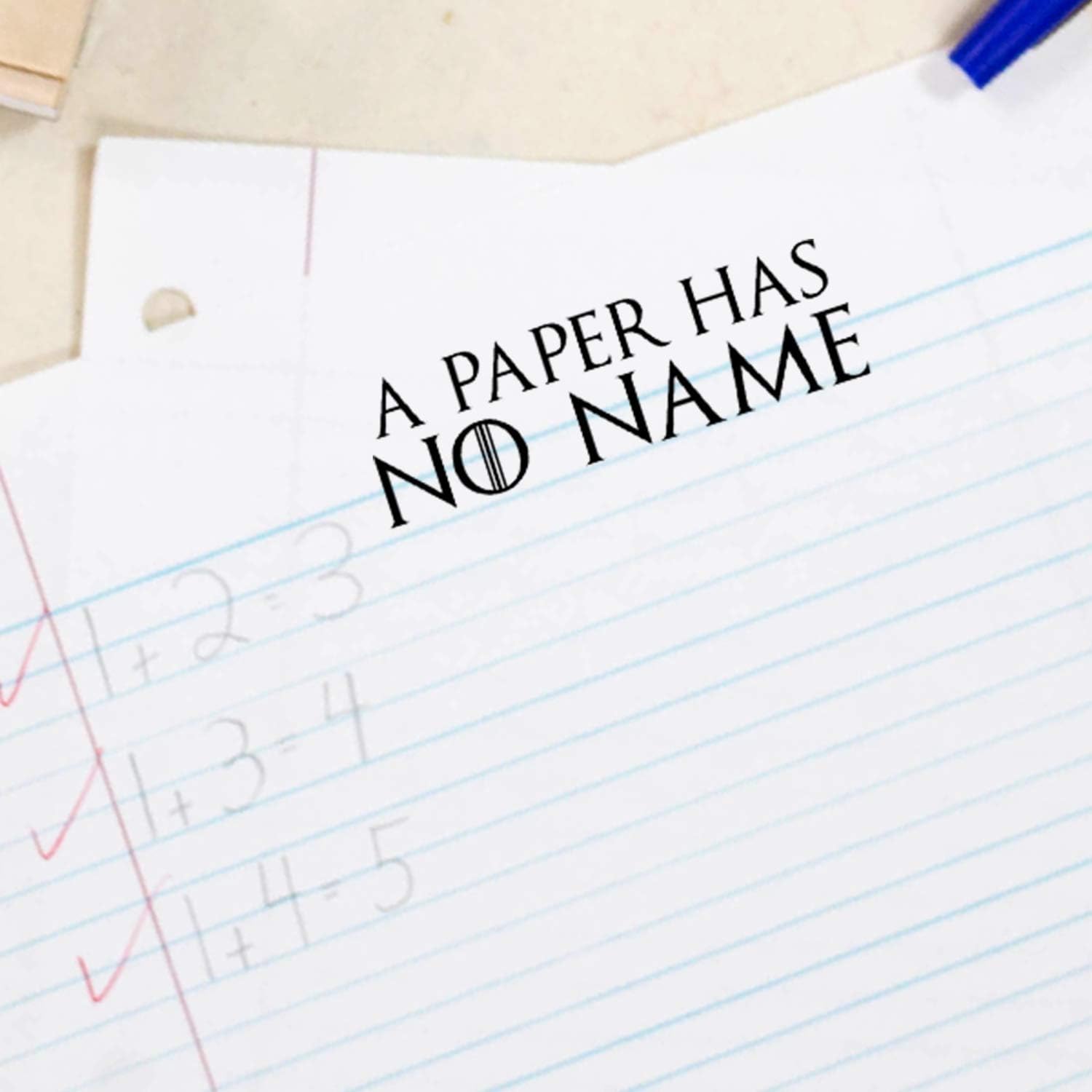
Game Of Thrones Font Name
Game Of Thrones by CJSfonts is a font based on the title logo from the TV show Game Of Thrones It is a free font Game of Thrones is an American fantasy drama television series created by David Benioff and D B Weiss for HBO Set on the fictional continents of Westeros and Essos, Game of Thrones has several plots and a large ensemble cast.
Game of Thrones is an American fantasy drama television series created by David Benioff and D B WeissThe series is based on George R R Martin's series of fantasy novels, A Song of Ice and FireThe series takes place on the fictional continents of Westeros and Essos, and chronicles the power struggles among noble families as they fight for control of the Iron Throne of the Seven Kingdoms. To “take the black” in Game of Thrones means to join the Night’s Watch, which is like their version of the military Here, it is being used as the name of their stout beer A perfect fit, and the best use of Game of Thrones lingo for a product name. MADE Canvas Serif Font Free;.
Game of Thrones vector logos can be downloaded to be scrutinized Game of Thrones logo font is based on numerous gothic ones and resembles “Trajan Pro”. The chapter title font is Catull BQ Medium The body font is Electra http//iimgurcom/j2i8aiVpng. This Game of Thrones fancy font is stimulated by using the display’s brand Download This font has a present daygothic layout developed by means of Charlie Samways It has a clean finish, making it clear to read.
GoT Fonts What really ‘sells’ the Game of Thrones look is the font The font used in the main TV show titles is available for sale online or there are alternatives Trajan Pro The font used in the TV Show is Trajan Pro by Carol Twombly & Robert Slimbach and distributed by Adobe. What Would Your "Game Of Thrones" Name Be?. GoT Fonts What really ‘sells’ the Game of Thrones look is the font The font used in the main TV show titles is available for sale online or there are alternatives Trajan Pro The font used in the TV Show is Trajan Pro by Carol Twombly & Robert Slimbach and distributed by Adobe.